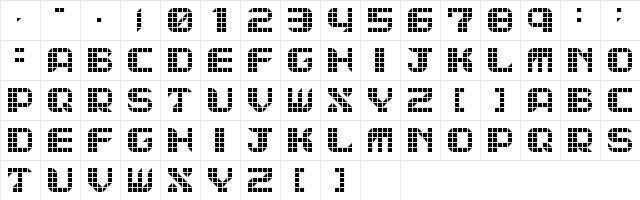
tytyle ver.2
Design Context for tytyle Typeface
tytyle takes a measured approach to typography — its balanced proportions and neutral character make it a reliable workhorse for both digital and print work.